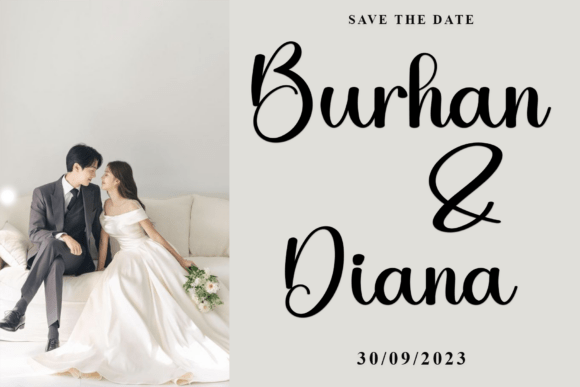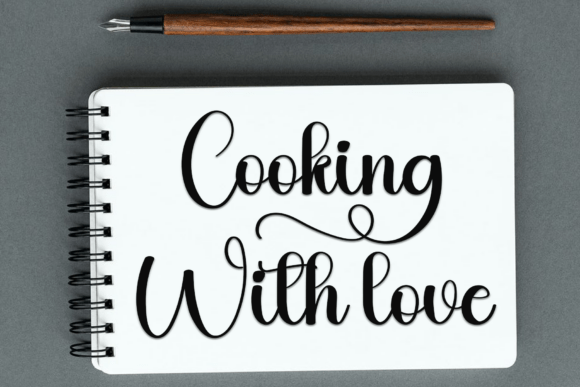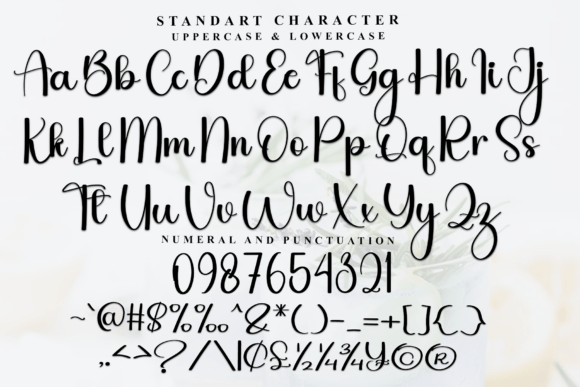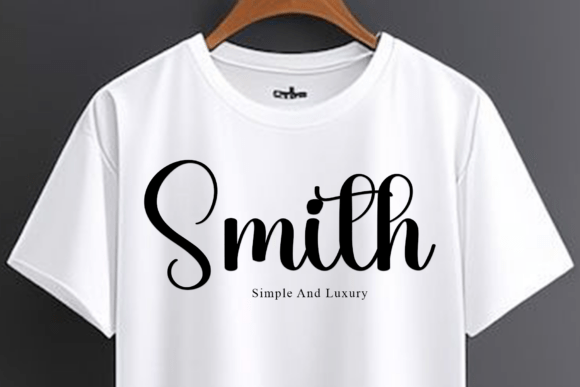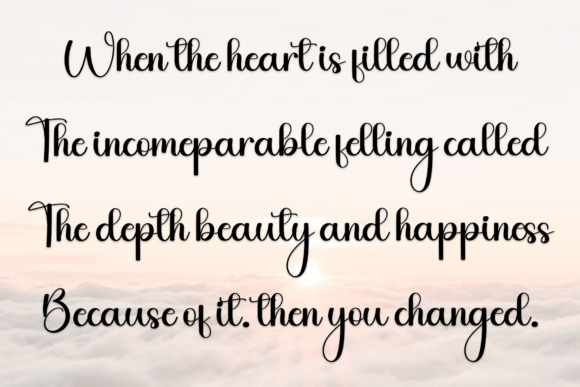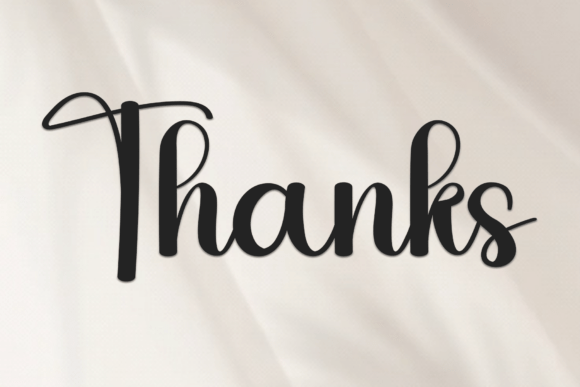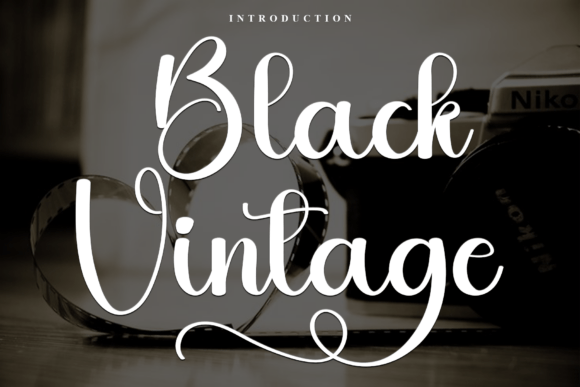
The Power of Black Vintage Font: Elevate Your Designs with a Unique Touch
I’ll never forget the time I was working on a design project for a client who wanted a vintage-inspired look. I had spent hours scouring the internet for the perfect font, but nothing seemed quite right. That was until I stumbled upon Black Vintage Font. Its distinctive strokes and soft, unique touch immediately caught my eye, and I knew I had found the one. In this article, I’ll share with you why Black Vintage Font has become a staple in my design toolkit and how you can make the most of its versatility.
An Honest Review of Black Vintage Font
- ✨ Unique Character: Black Vintage Font has a special character that sets it apart from other fonts. Its distinctive strokes give it a natural, hand-crafted feel that’s perfect for a wide range of design projects.
- ✅ Versatility: This font is incredibly versatile, making it suitable for various design projects, crafts, and creative works.
While Black Vintage Font is an excellent choice for many design projects, there are a few things to keep in mind:
- ⚠️ Limited Use in Small Sizes: Due to its intricate design, Black Vintage Font may not be the best choice for very small font sizes, as some details may get lost.
- 🤔 Glyph Limitations: While Black Vintage Font comes with a range of glyphs and stylistic alternates, there may be some limitations when it comes to extended character sets.
The Backstory of Black Vintage Font
Black Vintage Font was designed with the intention of capturing the essence of vintage design. The font’s creator wanted to create a font that would evoke a sense of nostalgia and timelessness, while still being unique and eye-catching. The result is a font that’s perfect for designers who want to add a touch of vintage charm to their designs.